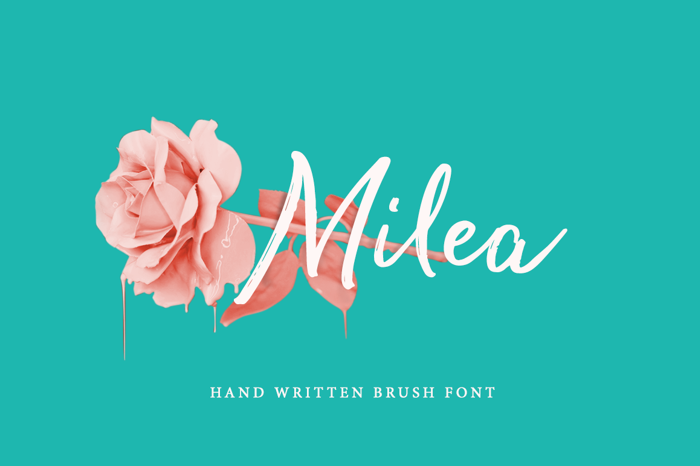
Milea Alt Font
Introducing Milea Handwritten Brush Font, script with a natural dry brush strokes make it beautiful, and the stroke of hand quickly.
Milea is perfect for signature, branding, wedding, fashion, photography title, poster, social media, ad banner, book cover, packaging, handwritten quotes, greeting cards, and advertising. With 2 fonts in a commercial package you can create more easily with alternatives to each letter and make it as if you wrote it yourself.